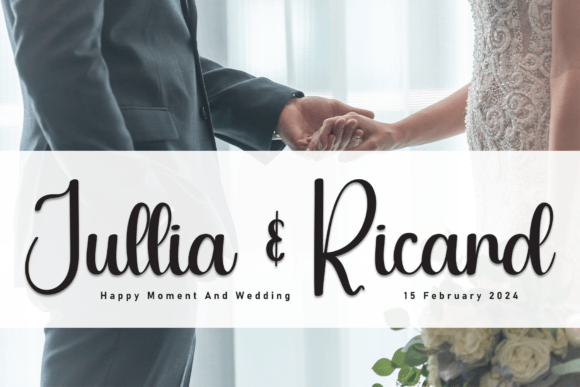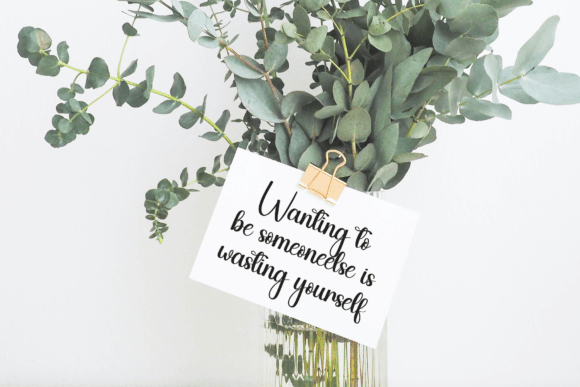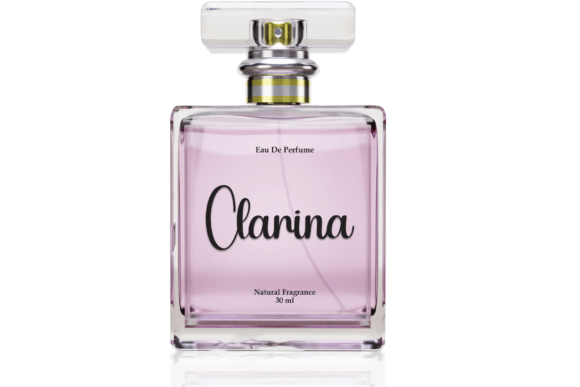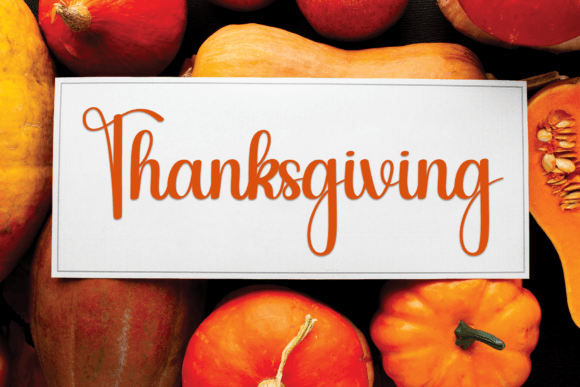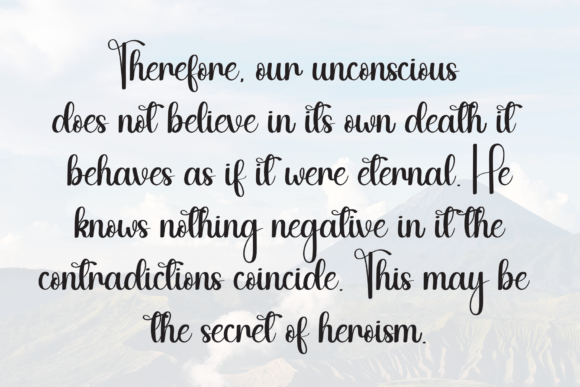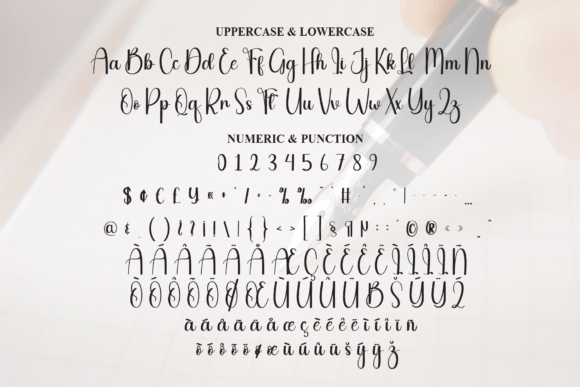
The Art of Beautiful Handwriting: Unlocking the Charm of Calligraphy Font
You know that moment when you’re brainstorming ideas for a special project, and suddenly, a spark of creativity hits you? Maybe it’s a wedding invitation, a birthday card, or a branding design that needs a unique touch. Whatever it is, you want it to be perfect, and that’s where the magic of Calligraphy Font comes in.
Calligraphy Font is a charming, handwritten font that adds a personal and whimsical touch to any design. Its versatility makes it perfect for a wide range of applications, from elegant wedding invitations to playful greeting cards. Whether you’re a seasoned designer or a DIY enthusiast, Calligraphy Font is a valuable asset in your creative toolbox.
Key Features of Calligraphy Font
- Unique Characteristics: Calligraphy Font features elegant, handwritten lettering with flourishes and connecting strokes, giving it a distinctive and sophisticated look.
Review of Calligraphy Font
Overall, I’m impressed with the aesthetic appeal of the Calligraphy Font. It’s perfect for creating a romantic and elegant look on invitations, certificates, and other formal documents. ✨ The font’s swashes and flourishes add a touch of sophistication, making it a great choice for special occasions.
- ⚠️ Kerning and spacing issues when combining with other fonts
- ⚠️ Limited character set and no support for certain languages
- ⚠️ Some characters may not be as smooth or connected as others
Despite some limitations, I would recommend the Calligraphy Font for designers who want to add a touch of elegance and sophistication to their projects. It’s perfect for formal documents, invitations, and other special occasions. With a little tweaking and experimentation, you can achieve beautiful results with this font.
For a more elegant look, pair the calligraphy font with a simple background and minimal design elements.
Experiment with different font combinations and layer styles to create a unique look.
For a dramatic effect, use the calligraphy font as a title or heading font.
Calligraphy font is perfect for:
- Business logos and branding.
- Artistic and creative projects.
Remember to choose a font that complements your design and adds a touch of elegance.